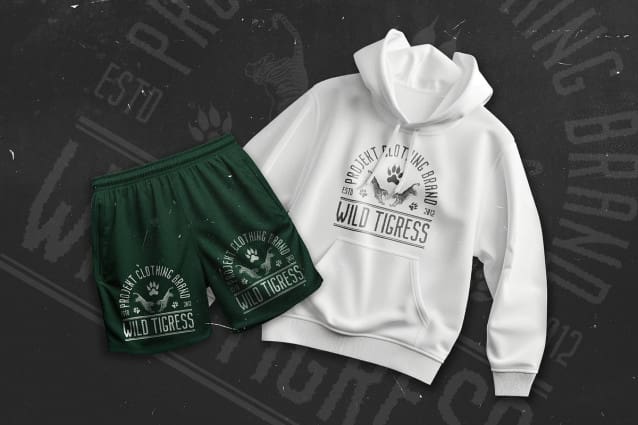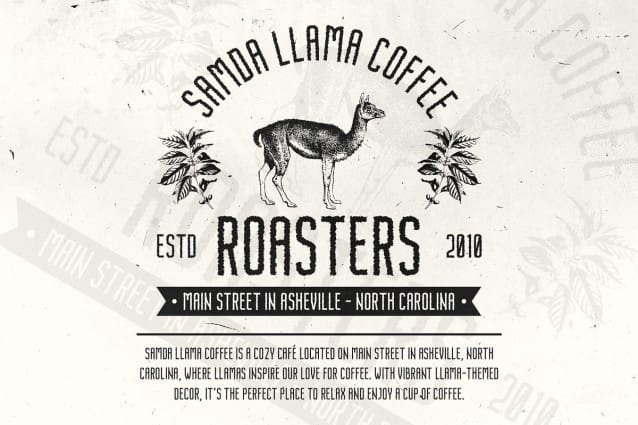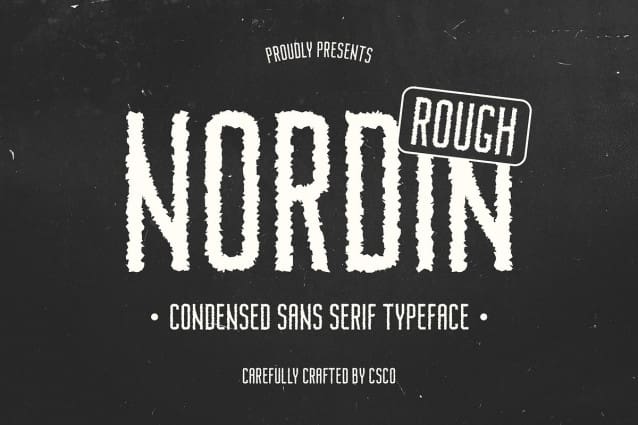
Nordin Rough Font
Nordin Rough Font is a modern sans-serif font that combines a condensed form with a rough, textured finish to create a bold, expressive appearance. The slim, focused lines provide a sleek, dynamic presence, while the rough effect gives the font a raw, rugged quality that makes it stand out in any design.
Striking and Edgy Appeal This font is designed to make a powerful visual impact, perfect for branding, posters, and graphic design projects that need to grab attention. Its sharp, narrow shapes paired with the rough texture evoke strength and energy, making it an ideal choice for designs that seek to convey both elegance and an edgy personality.
Versatile for Creative Projects Whether you’re designing striking headlines, attention-grabbing posters, or bold branding, Nordin Rough ensures your message is delivered with style and confidence. Its dynamic design works well in a variety of creative contexts, allowing for a modern yet rebellious aesthetic that’s perfect for contemporary visuals.